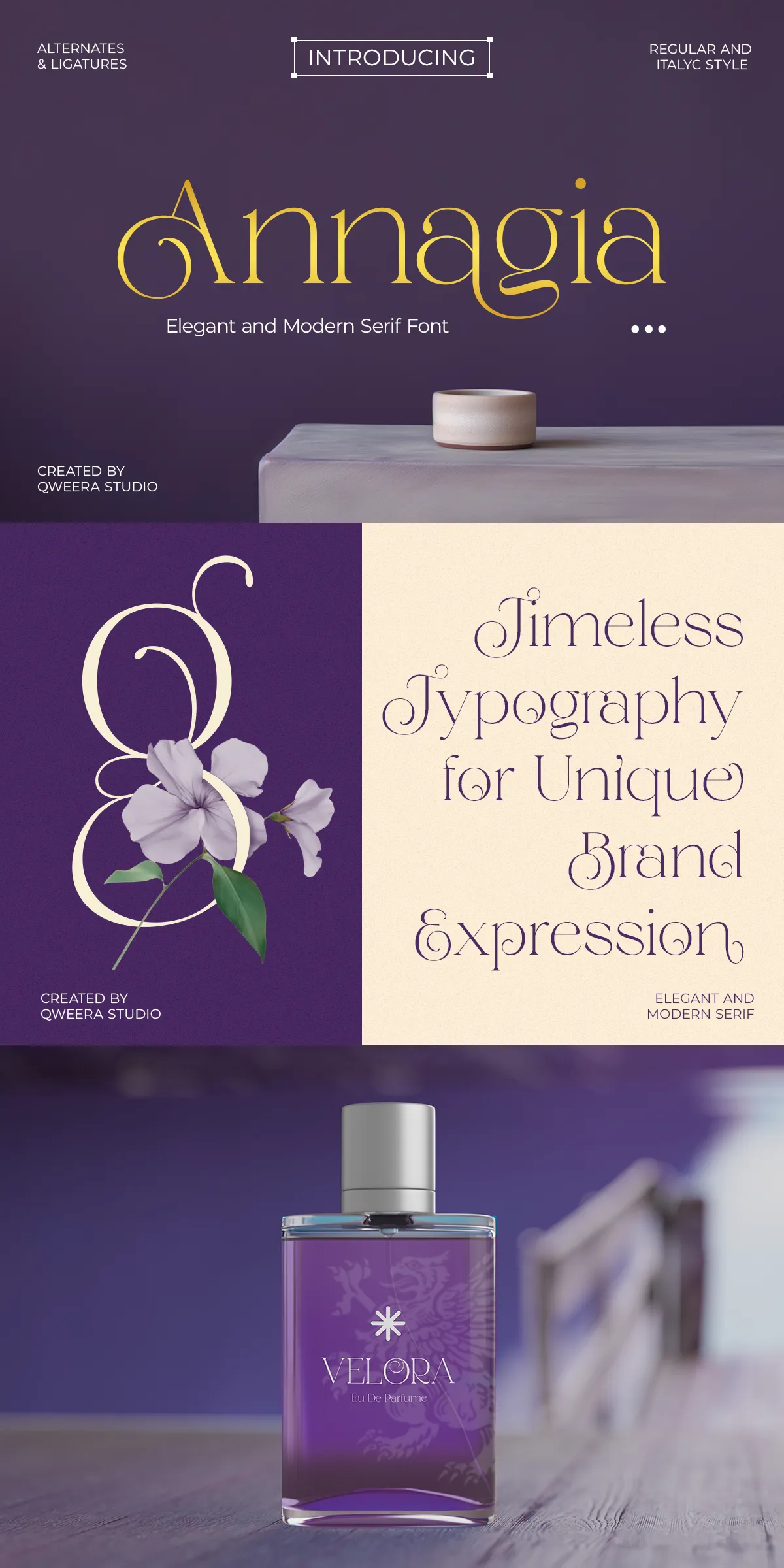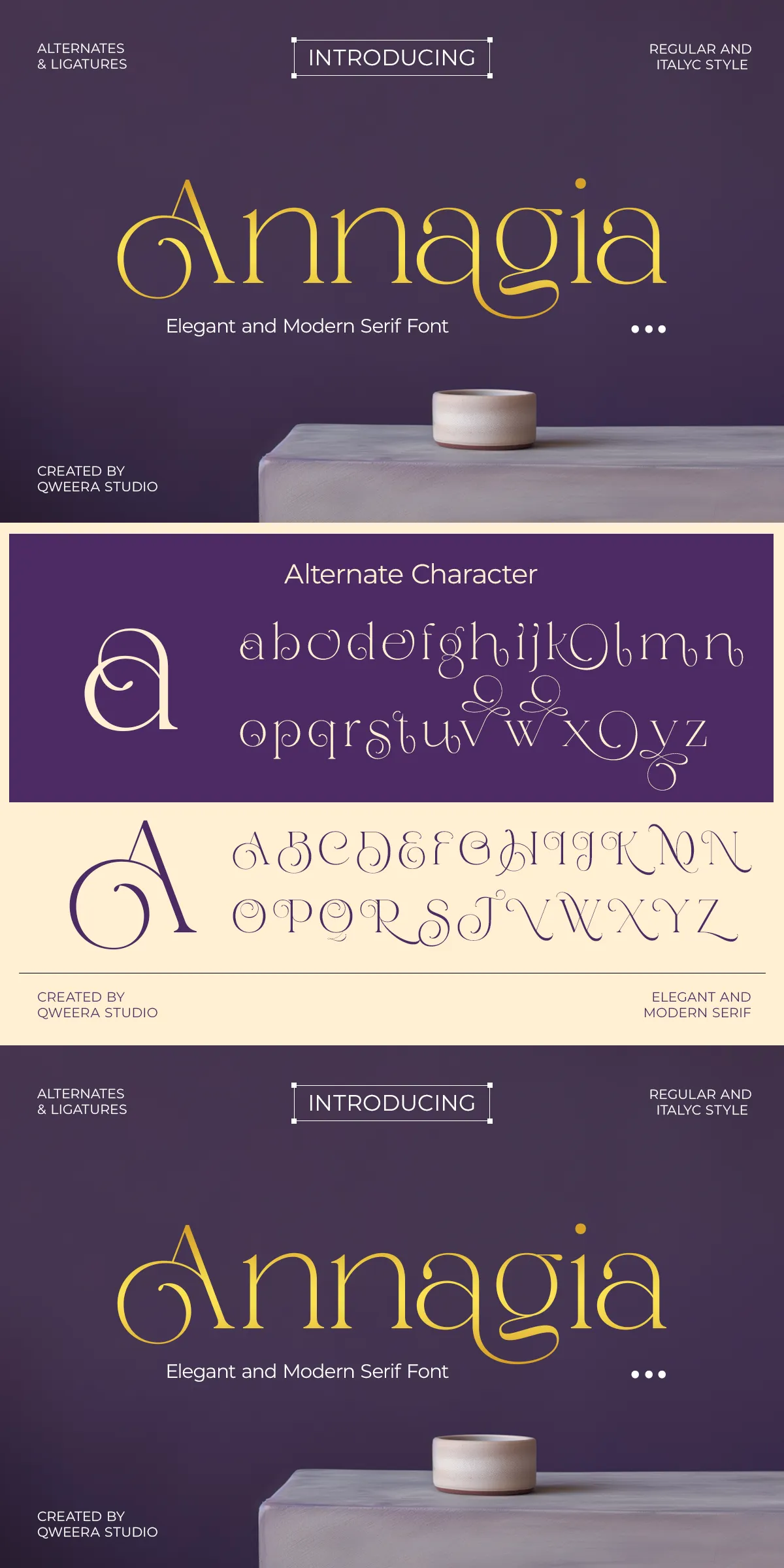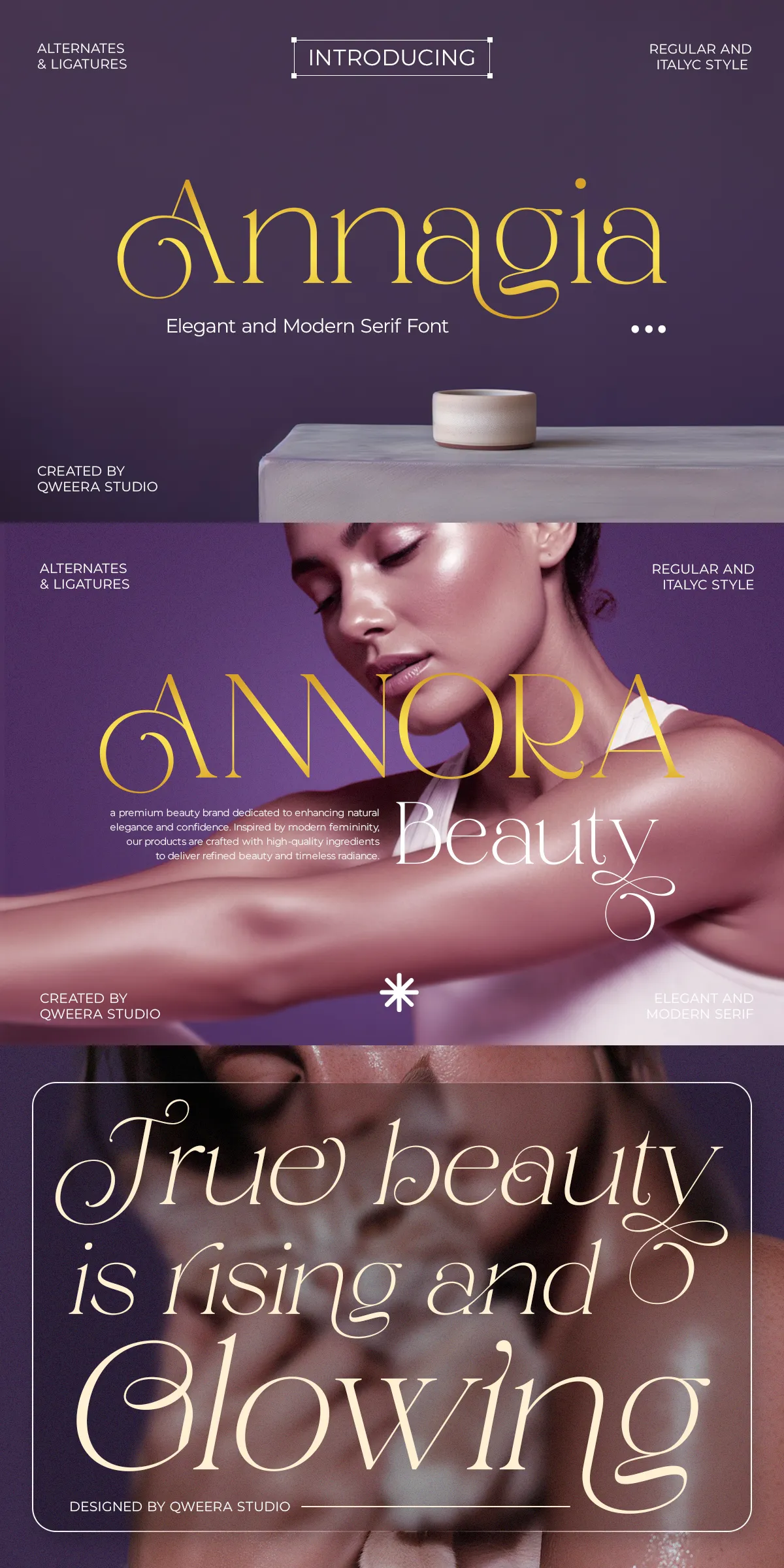
Annagia delivers a refined voice for premium creative projects. This modern serif combines balanced contrast, smooth curves, and carefully designed ligatures to create a polished typographic identity that reads both graceful and contemporary. Designers use Annagia to establish memorable brand marks, elevate packaging, and craft invitations that feel handcrafted and exclusive. Built with attention to detail, Annagia performs across print and digital environments while preserving clarity even at display sizes. Choose Annagia when you want type that communicates quality, intentionality, and timeless style.
Why Choose Annagia For High-End Visual Identity Systems
Annagia actively elevates brand communications by offering letterforms that feel deliberate and cohesive. The typeface emphasizes strong serifs and soft terminals to balance rigid structure with an inviting warmth. Its refined contrasts create clear hierarchies and striking headlines, while its generous counters and open shapes ensure legibility in varied contexts. Annagia supports designers who need a versatile serif that behaves reliably across logos, editorial headlines, product labels, and wedding stationery. By adopting Annagia, teams create consistent, upscale visual systems that enhance perceived value and brand recognition.
Design Characteristics And Visual Personality Of Annagia
Annagia presents a poised personality rooted in modern serif traditions. It pairs pronounced but measured stroke contrast with rounded joins and subtle flares at terminals. The letterforms feel contemporary without losing classical proportion, enabling designers to use the typeface for both modern couture campaigns and timeless editorial layouts. Annagia’s ligatures and alternates add expressive options for logotypes and headlines, while its italic style provides a complementary voice for emphasis and elegant subheads. Overall, Annagia balances decorative charm with practical functionality.
Core Features Included With Annagia
- Complete uppercase and lowercase character set for flexible typographic composition
- Regular and italic styles to support hierarchy and emphasis
- Alternates and elegant ligatures to craft distinctive wordmarks and headlines
- PUA-encoded glyphs for easy access to decorative forms and special characters
- Multilingual support for broad market reach across Latin-based languages
- Optimized spacing and kerning for high-impact display use
Technical Notes And Implementation Tips
Typical Use Cases And Practical Applications
Annagia excels in any application that needs a refined, fashionable voice. Use it for boutique logos that require a confident yet approachable mark. Apply it to beauty and skincare packaging to communicate craftsmanship and luxurious materials. Design wedding invitations and stationery with Annagia’s ligatures and italics to create emotive, handmade feeling. Use the typeface for editorial headlines, lookbooks, and fashion campaigns where strong display presence matters. Annagia also suits high-end product labels, boutique signage, and social media creatives that demand a cohesive, premium aesthetic.
Recommended Pairings And Visual Strategies
- Pair Annagia with a neutral sans-serif for body copy to maintain contrast and readability.
- Use subtle color palettes and generous white space to allow Annagia’s details to register.
- Reserve stylistic alternates and ligatures for key brand moments to preserve consistency.
- Create a brand guide that documents size scales, tracking, and approved alternates for team-wide use.